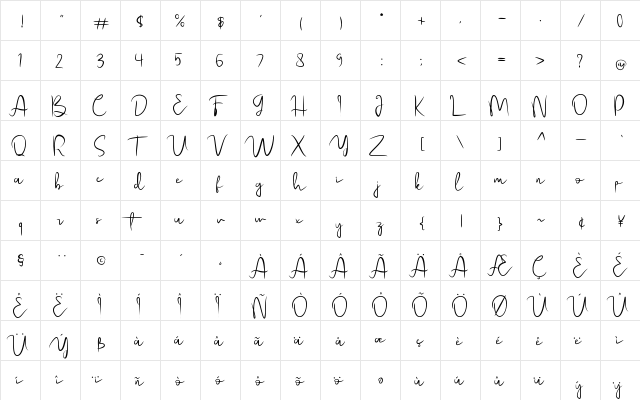
Esmeralda Regular
Design Context for Esmeralda Typeface
Esmeralda is a composed and adaptable typeface that performs quietly and consistently across a wide range of design contexts.